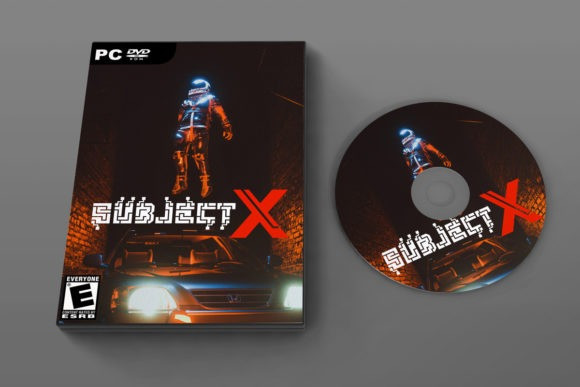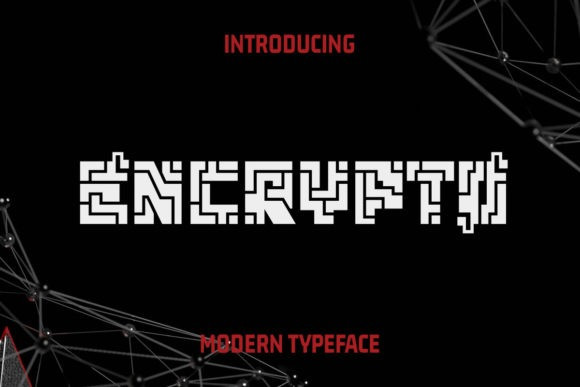
Encrypto Font
Encrypto Display Font is a modern display font. It is imposing and features uniquely shaped letters, and as a result, it will easily match a wide range of creations that require a distinct touch.